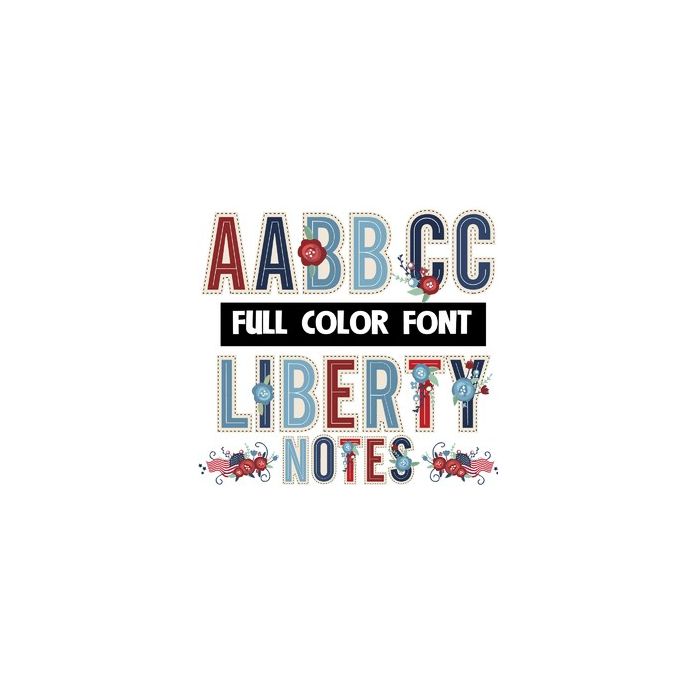
This pretty full-color font features blocky, sans serif lettering with some pretty floral designs here and there with a patriotic theme. There is a fun, floral/flag bouquet you can add to your words by typing the triangle bracket glyphs.